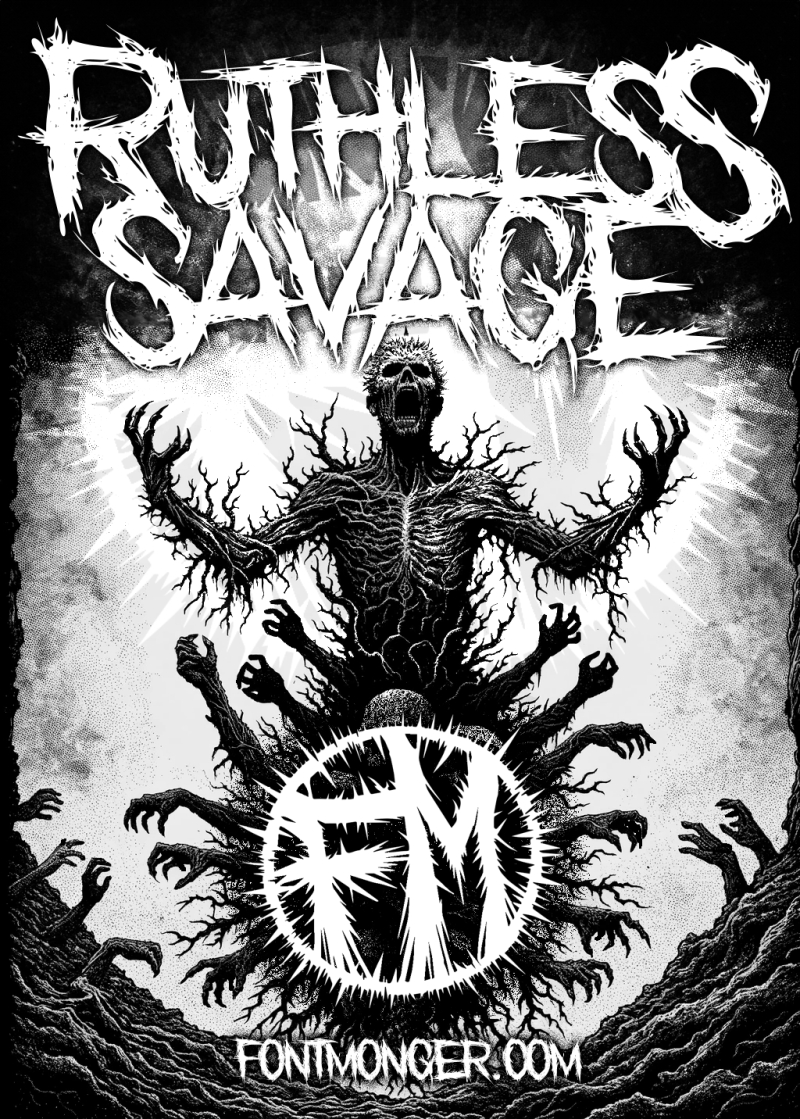
Unleash the Terror: Introducing Ruthless Savage Font
Welcome to the dark and chilling world of Ruthless Savage, the ultimate horror-themed brushed font designed to bring your nightmares to life. Whether you're a graphic designer, author, musician, or event planner, this font is your go-to tool for adding an eerie, spine-tingling touch to your projects.
The Birth of Ruthless Savage
Inspired by the raw, hand-crafted brush strokes and the dark aesthetics of horror, Ruthless Savage was meticulously designed to deliver an authentic and terrifying experience. Every letter is crafted to look as if it were painted with a brush dipped in darkness, creating a unique texture that stands out in any design.
Features
Brushed Style: Each letter of Ruthless Savage is meticulously crafted to resemble brush strokes, giving it an authentic, hand-painted look. This style adds a raw and edgy feel to your designs, making them stand out.
Horror Theme: Designed with a heavy emphasis on horror, this font is perfect for creating a chilling atmosphere. Whether it's for a horror movie poster or a gothic book cover, Ruthless Savage sets the perfect mood.
Versatile Application: Ruthless Savage is ideal for a wide range of projects. From horror movie posters and gothic book covers to death metal album art and Halloween party invites, this font brings a spooky touch to any design.
Perfect For
Graphic Designers: Enhance your projects with a unique, spooky font that stands out. Ruthless Savage is perfect for creating designs that grab attention and set the mood.
Authors & Publishers: Create eye-catching covers for horror and gothic novels. The eerie feel of Ruthless Savage makes it the perfect choice for book covers that need to convey a sense of dread and mystery.
Musicians & Bands: Design striking album covers and merchandise for metal and punk bands. The raw, hand-crafted look of Ruthless Savage is ideal for music genres that thrive on intensity and edginess.
Event Planners: Set the mood for Halloween parties and haunted attractions with eerie, themed invites and decorations. Ruthless Savage helps you create an atmosphere of fear and excitement.
See Ruthless Savage in Action
Our latest artwork showcases Ruthless Savage in an intaglio-style design, featuring a terrifying figure emerging from the depths of hell, surrounded by demonic hands and a giant, all-seeing eyeball. This design perfectly captures the eerie essence of Ruthless Savage, demonstrating its capability to enhance any horror-themed project.